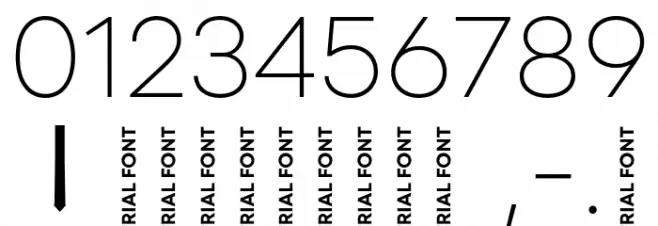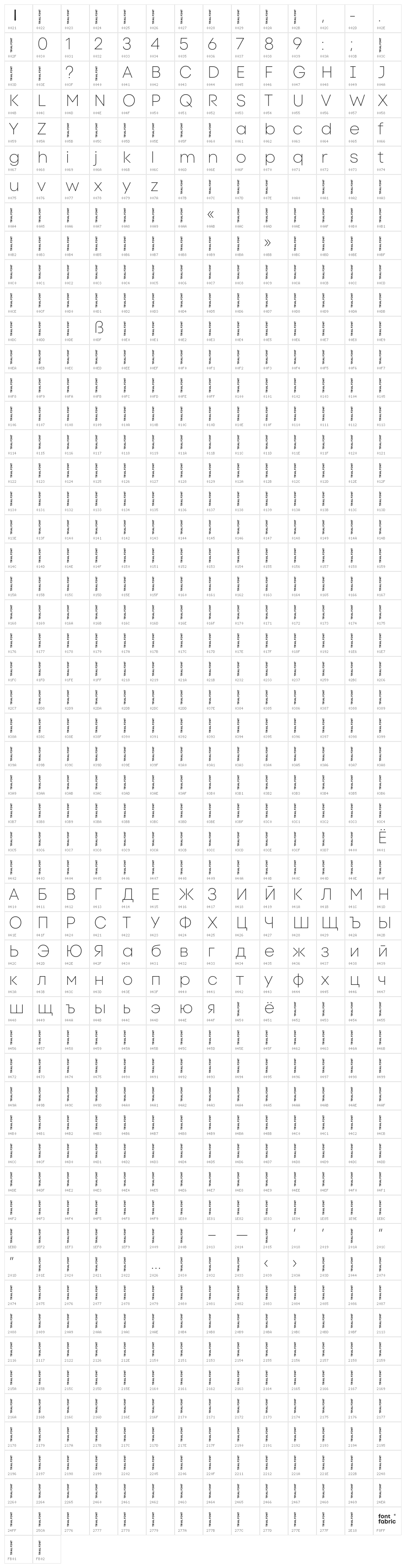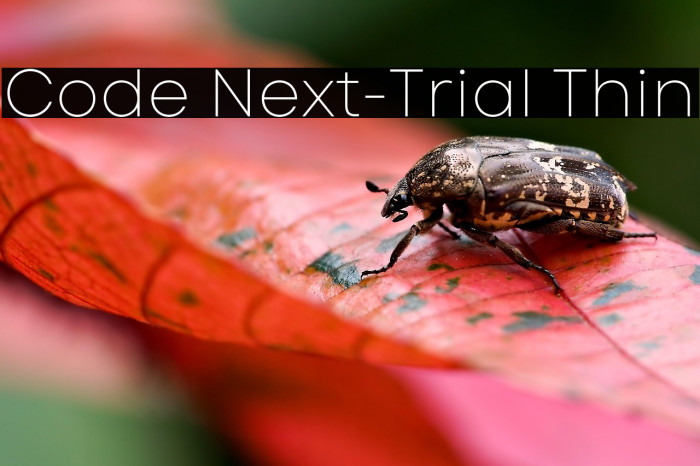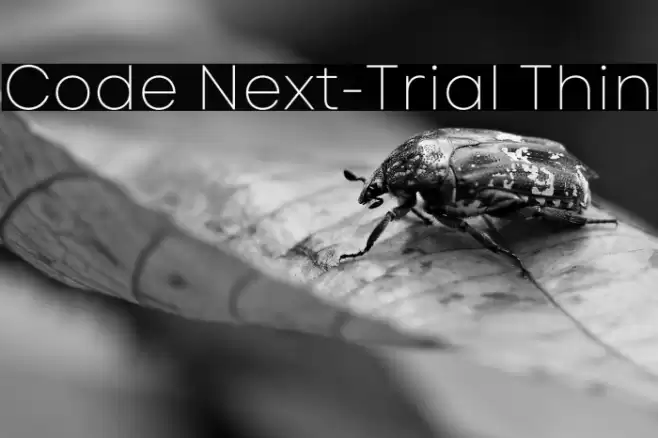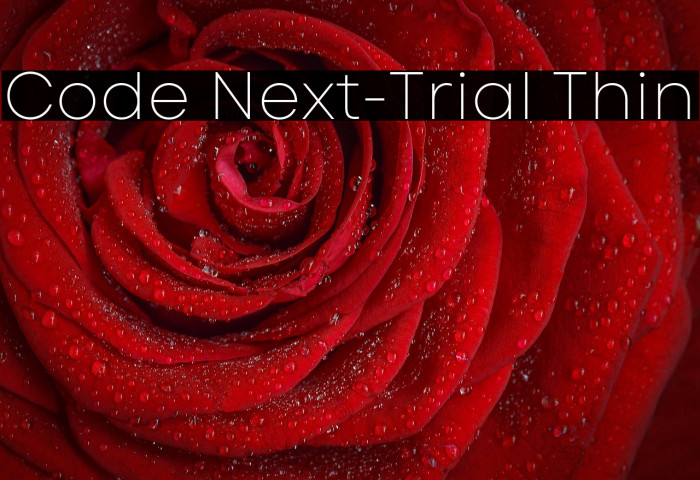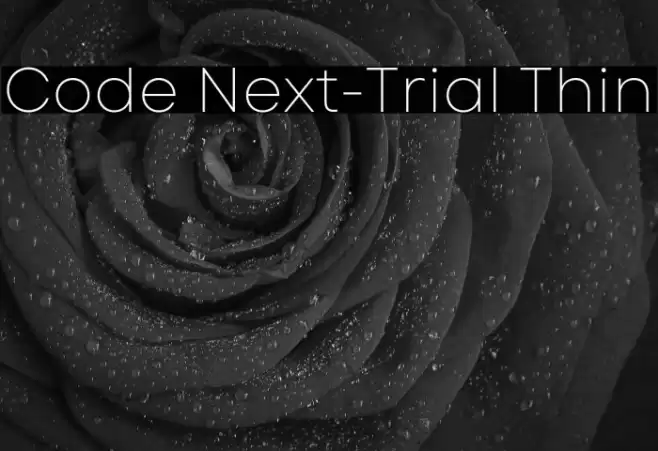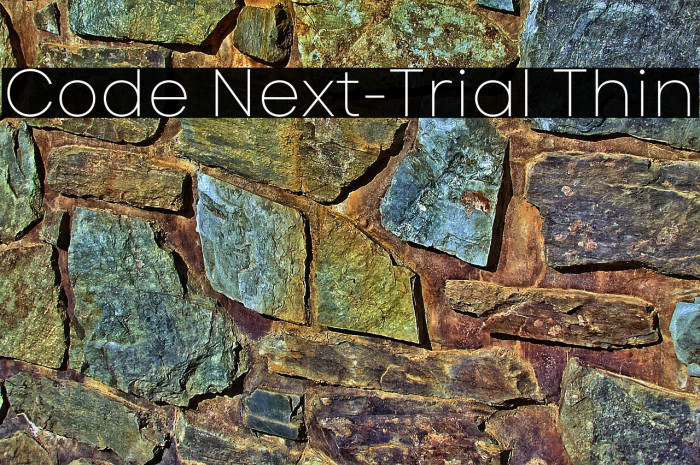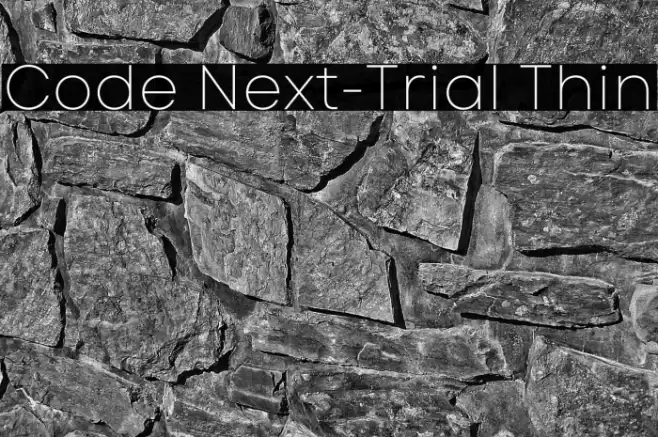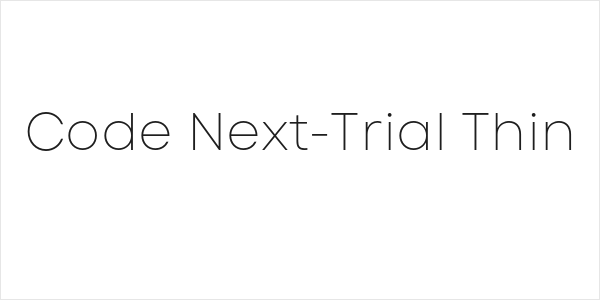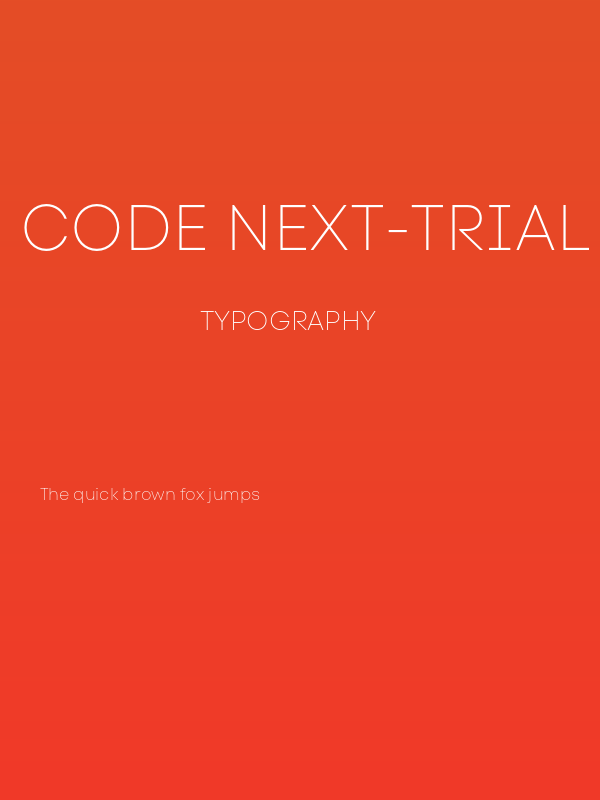
This font features a clean and minimalist design with a modern aesthetic. The characters are crafted with a uniform stroke width, giving it a sleek and contemporary appearance. The uppercase and lowercase letters are well-proportioned, with a geometric influence that adds to its clarity and readability. The numerals are consistent with the overall style, maintaining the same thin and elegant line weight. Special characters are included, complementing the font's cohesive look. This font is ideal for projects that require a modern and professional touch.
| Proposed Projects | Ideal for branding, web design, corporate materials, and minimalist posters. |